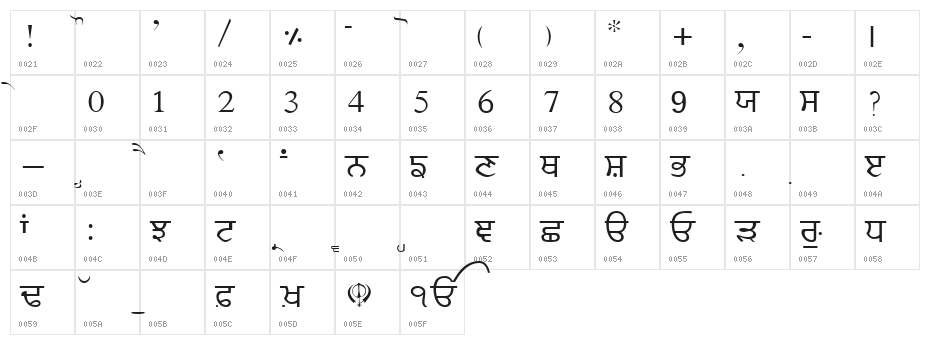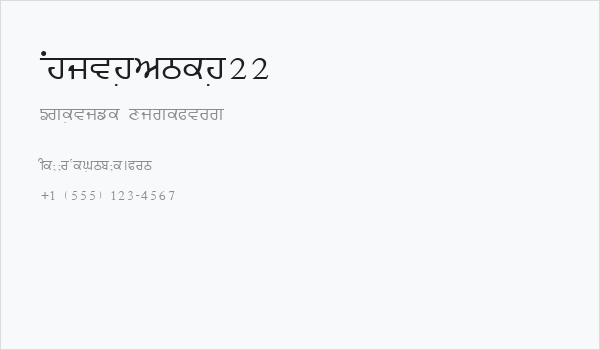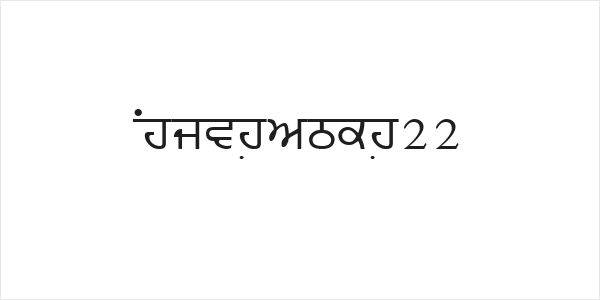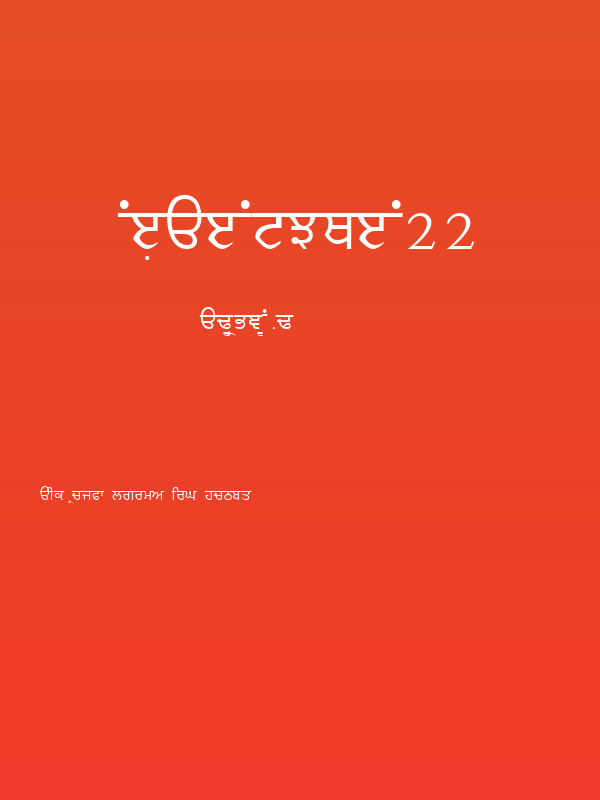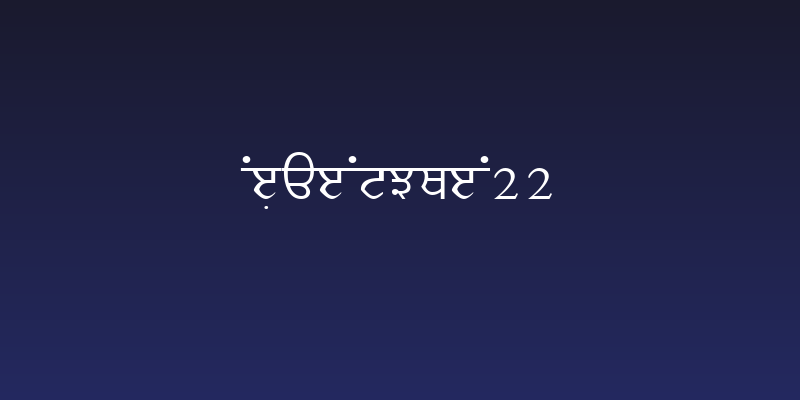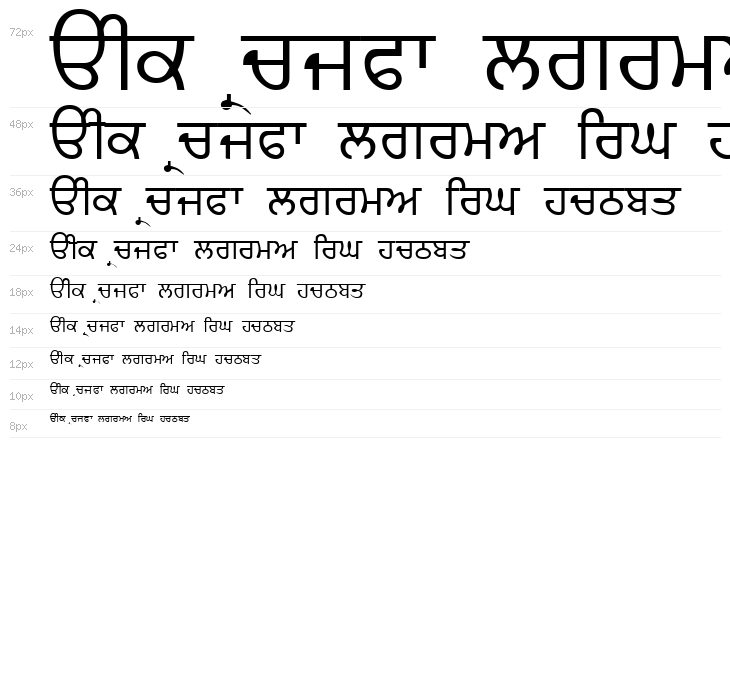
Ajitjanmeja22 Font
Ajitjanmeja22 Description
This font features a distinctive and elegant style, characterized by its clean and modern appearance. The characters exhibit a balanced structure with smooth curves and sharp edges, creating a harmonious blend of traditional and contemporary design elements. The numerals are clear and legible, maintaining consistency with the overall aesthetic. Special characters are thoughtfully designed to complement the primary character set, ensuring versatility across various applications. The font's design is suitable for both digital and print media, offering a professional yet approachable feel.
| Proposed Projects | Ideal for branding, editorial design, signage, and digital interfaces. |